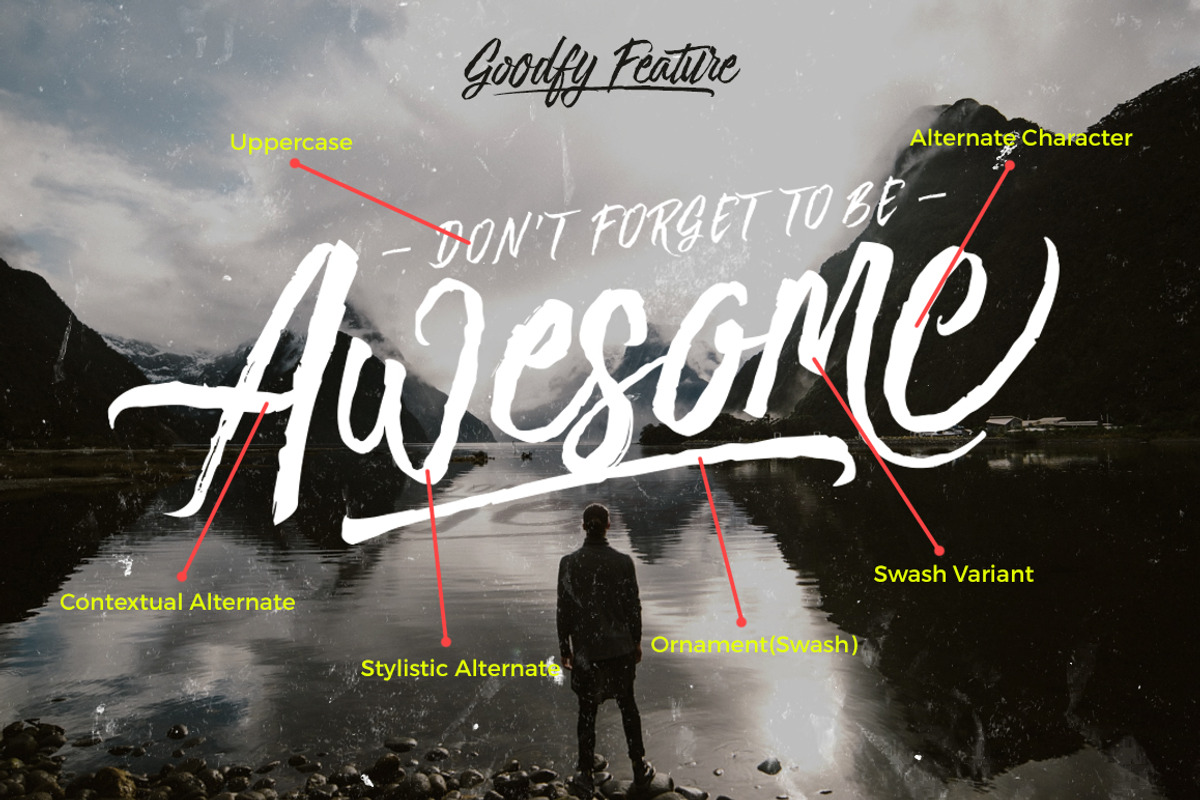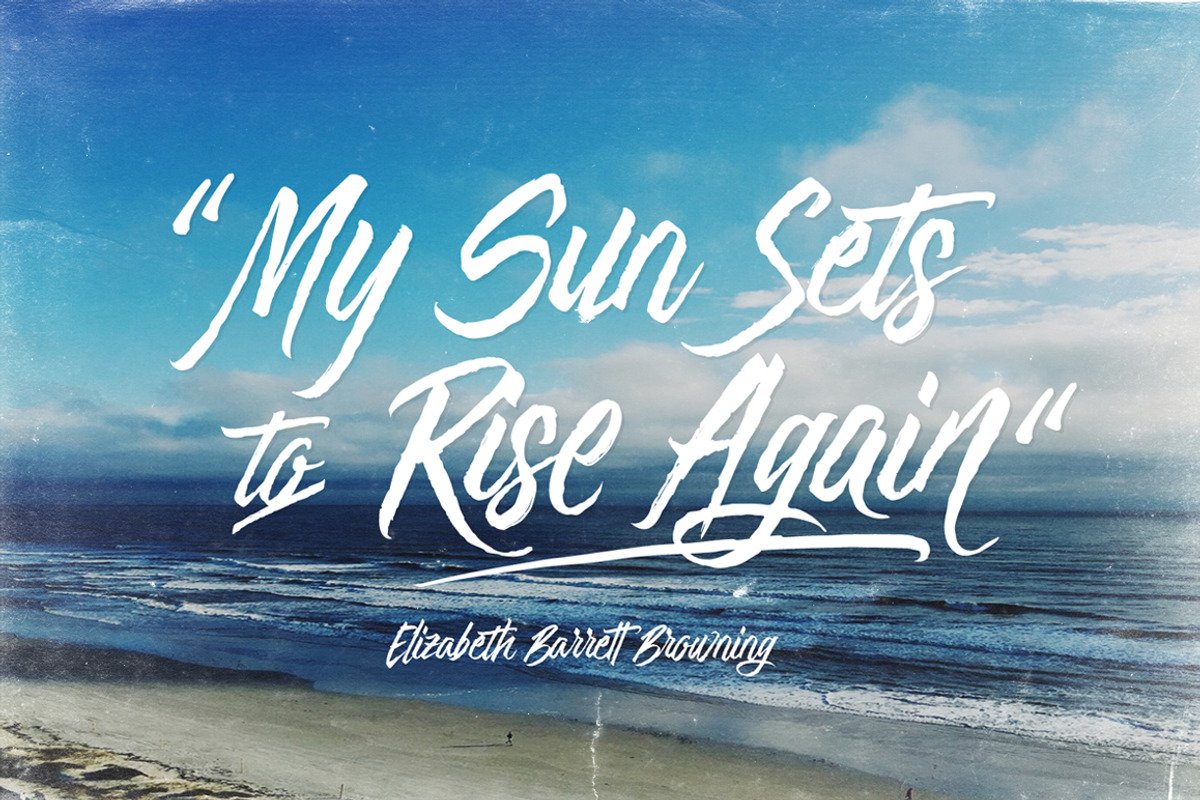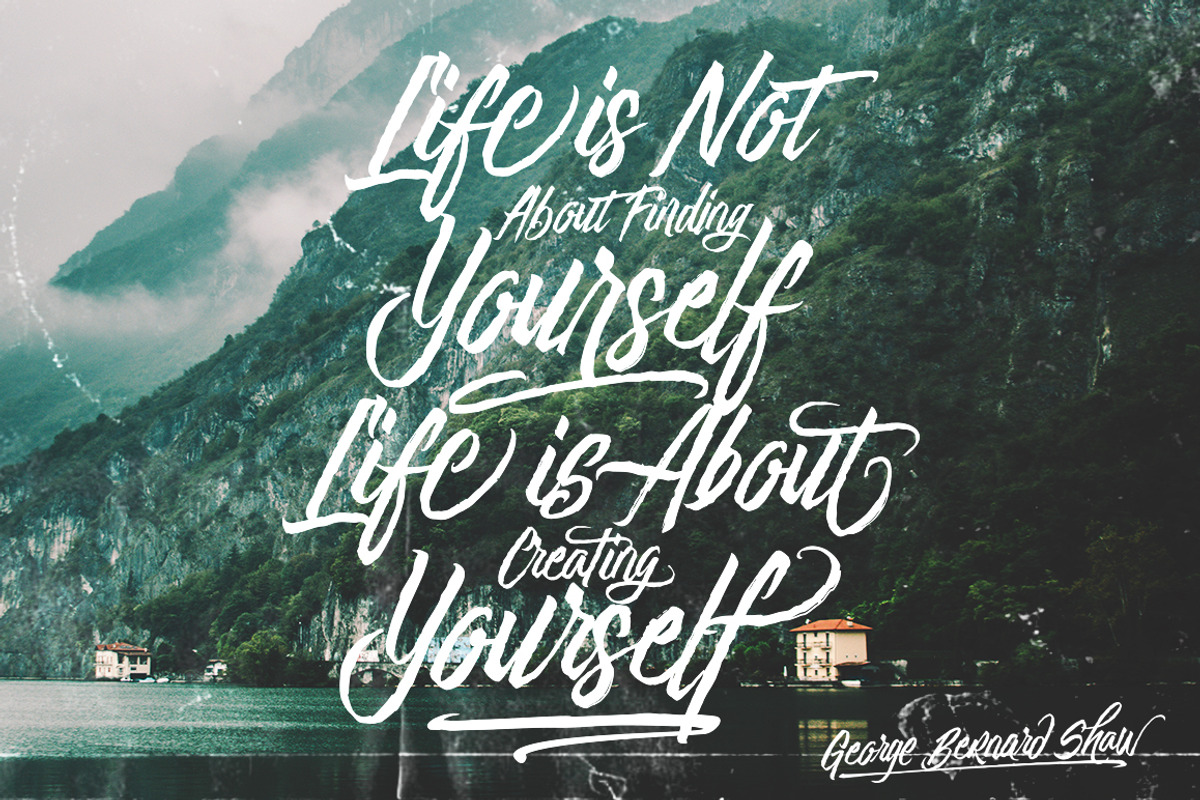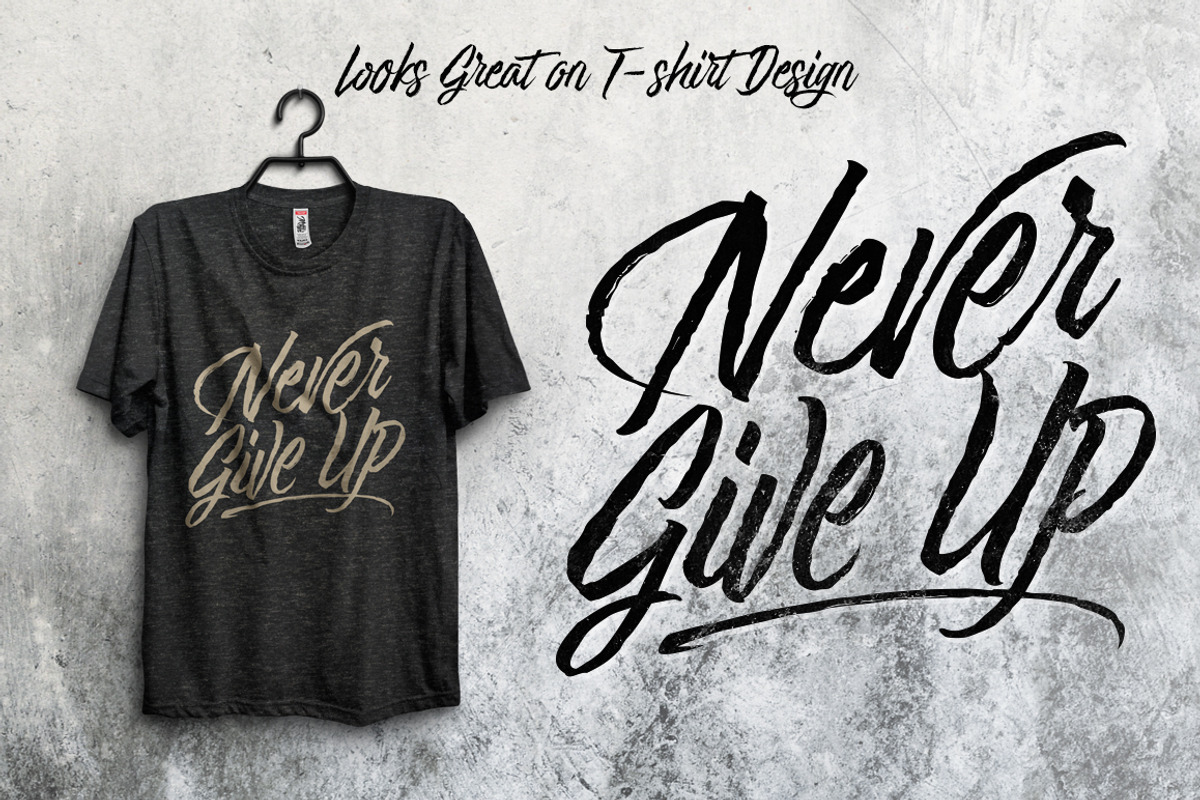
Goodfy Connected v2 - Brush Font
Goodfy Connected v2 - Brush Font by dexsarharryfonts is a font selected for branding, posters, packaging, typography.
- Goodfy Connected Standard
- Goodfy Connected Pro
Why Goodfy Connected v2 - Brush Font is worth a look
Goodfy Connected v2 - Brush Font by dexsarharryfonts fits naturally into Branding, posters, packaging, typography.